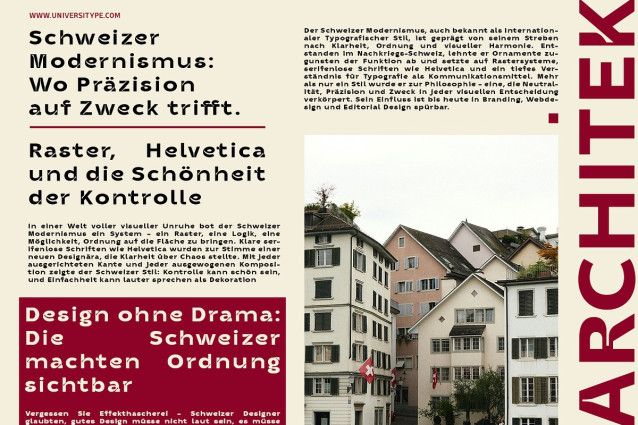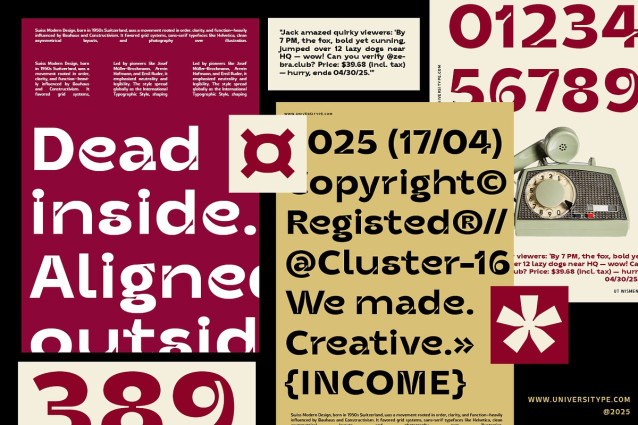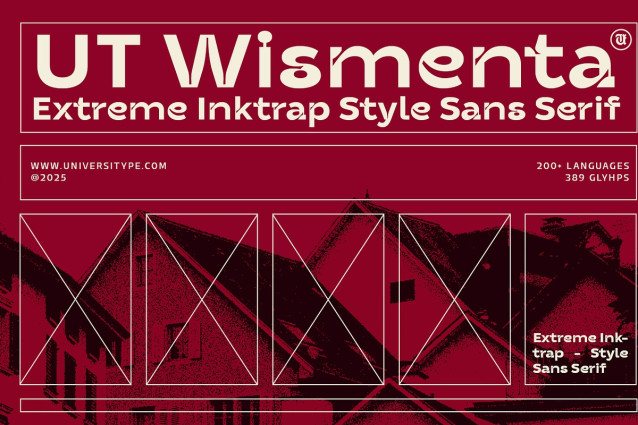
UT Wismenta Font
UT Wismenta Font, a bold display typeface that mixes the clean structure of Swiss modernism with the raw attitude of extreme ink traps. Built on grid logic but broken by brutal, expressive forms, this sans serif doesn’t just speak with structure, it shouts with style.
UT Wismenta is made for bold, creative minds who want their work to stand out. Perfect for graphic designers, typographers, and artists looking to add a fresh, modern edge to branding, editorial layouts, packaging, and digital interfaces.